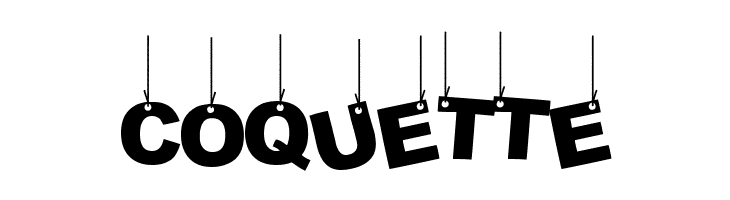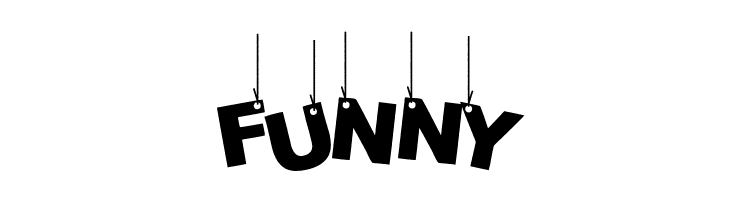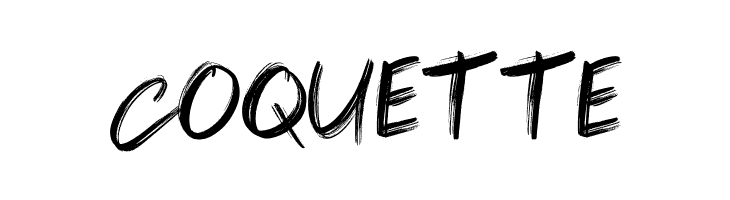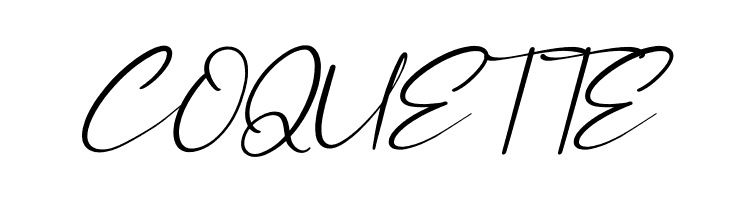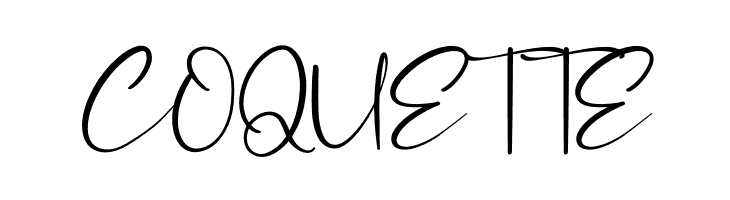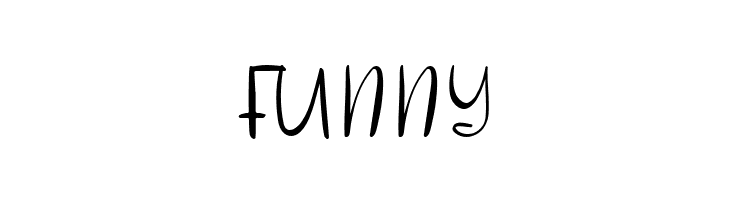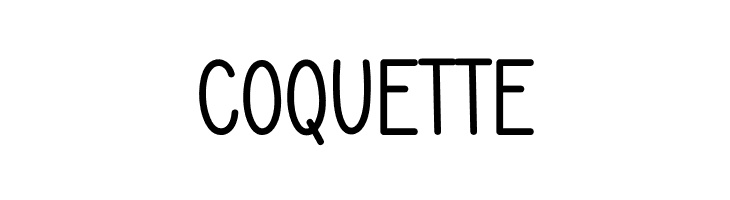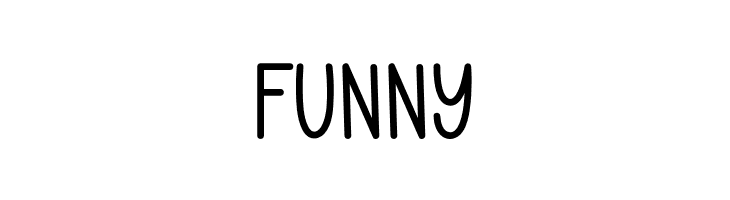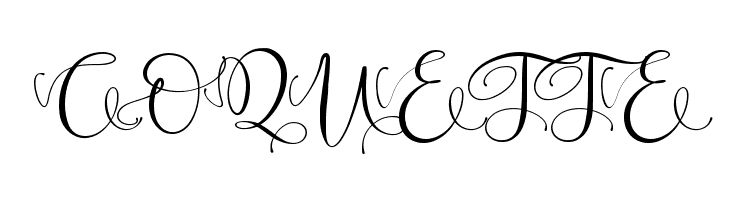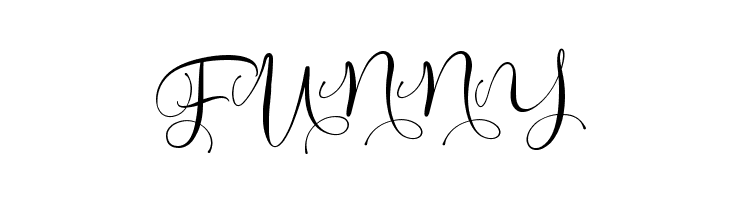
A bold, playful script font with smooth curves and exaggerated serifs.
An elegant, flowing script font with a refined, handwritten style.
A playful, handwritten font with rounded edges and consistent stroke width.
A bold, expressive handwritten font with a brush-like texture.
A bold, handwritten font with dynamic brush-like strokes.
A playful handwritten font with a casual and friendly style.
A bold, distressed font with a rugged, urban style.
A modern, elegant cursive script with flowing, graceful characters.
An elegant, cursive italic font with a handwritten style.
A playful, rounded font with a handwritten feel, perfect for casual and creative projects.
A playful, handwritten-style font with rounded, consistent strokes.
A bold, playful font with rounded edges and a friendly appearance.
A playful, bold font with rounded, hand-drawn letterforms.
A playful, hand-drawn font with a sketch-like, textured appearance.
A playful, hand-drawn font with bold, rounded characters and diagonal hatching.
A graceful script font with flowing, cursive strokes and elegant curves.
A playful, handwritten font with bold, dynamic strokes and a casual style.
A playful, handwritten font with bold, dynamic strokes and an informal style.
A bold, playful font with characters hanging on ropes, perfect for festive designs.
An elegant, cursive font with decorative swashes and flourishes.
A bold, playful handwritten font with rounded, dynamic letterforms.
A vibrant, brush-style font with a dynamic and artistic flair.
A playful, handwritten-style font with bold, rounded characters.
A playful, handwritten font with bold, rounded strokes and a casual style.
An elegant, cursive font with a handwritten signature style.
A sophisticated, cursive script font with elegant, flowing strokes.
A fluid, cursive font with elegant, sweeping strokes and a handwritten feel.
Bold cursive script with a handwritten style.
Casual handwritten script font.
Handwritten script font with a natural, elegant flow.
A lively, expressive handwritten font with dynamic strokes.
A flowing, cursive script font with elegant, connected strokes.
A bold, cursive font with elegant, flowing curves and a handwritten style.
A dynamic, expressive script font with a handwritten style.